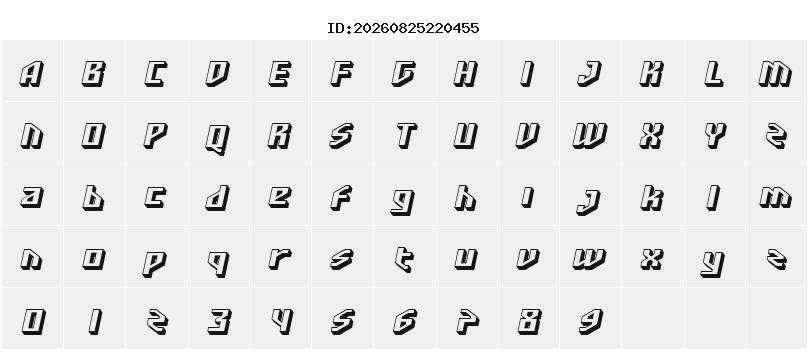
SF Funk Master Preview
• Font Name: SF Funk Master
• Font Style: Oblique
• Full Font Name: SF Funk Master Oblique
• Designer: ShyFonts Type Foundry
• Description: SF Funk Master Oblique is a trademark of the ShyFonts Type Foundry.